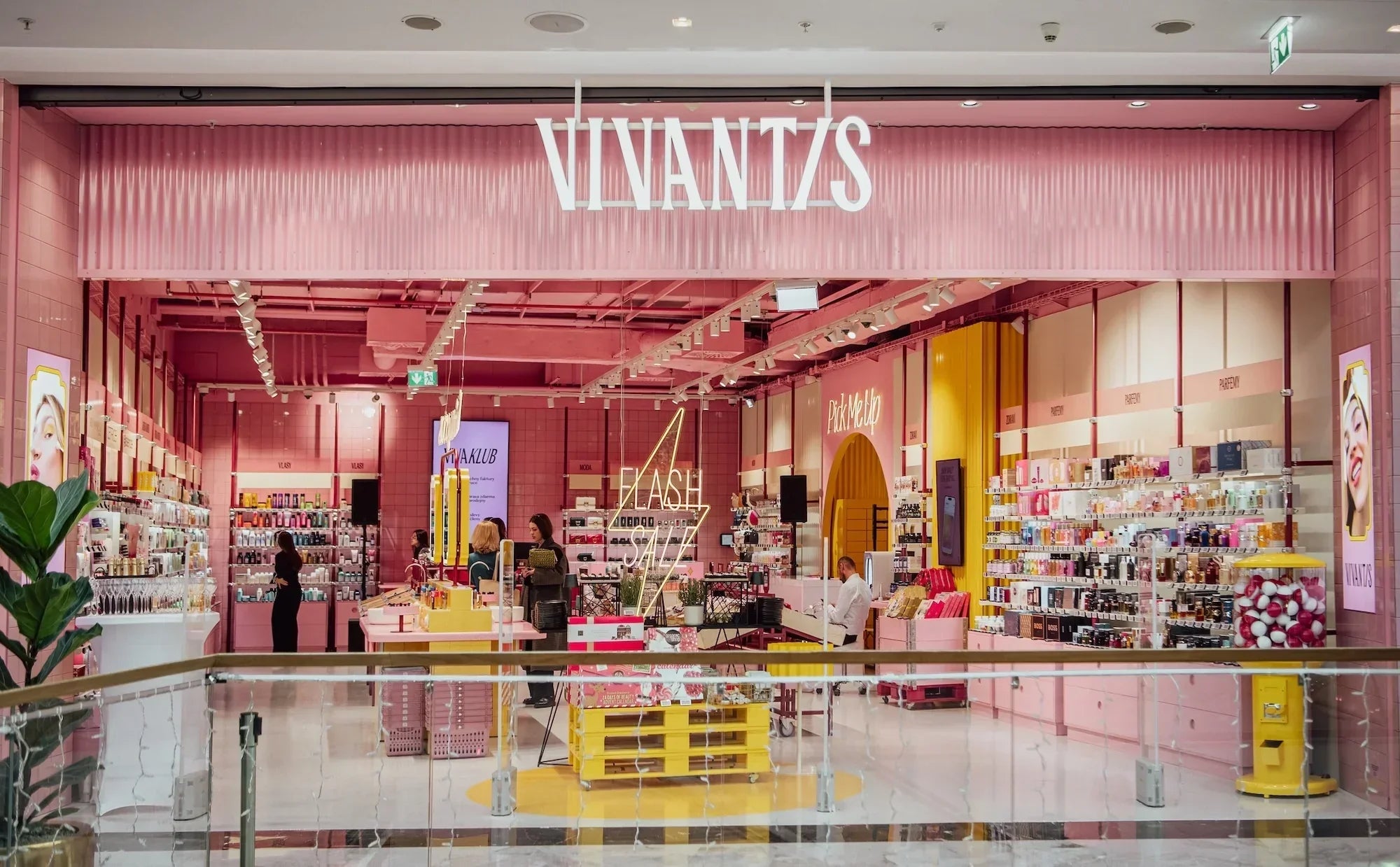
Say the name out loud: Vivantis. Now faster. Vi-vant-is. “We want this.”
That phonetic coincidence became the starting point for everything Stockholm-based creative agency SNASK built when they took on the rebrand of one of Europe’s largest beauty e-commerce platforms, specialising in the Eastern European market. The wordmark has been crafted to emphasise exactly how the name reads when spoken aloud, splitting the letters to lean into that double meaning.
It’s a rather clever piece of verbal design, but the deeper challenge for the project was structural. Vivantis had built a successful commerce operation across Eastern Europe, yet the brand itself carried no weight. Customers chose it for price and product availability, then moved on without a second thought. There was no loyalty, no emotional connection, no reason to come back beyond the next discount. SNASK’s brief was to change that, starting from strategy and tone of voice through to the full identity, campaign production and a flagship store concept.
The discovery process revealed a brand that had been looking in the wrong direction. “Their brand was more focused on pleasing millennials rather than trend-setting Gen Z,” Freddie Öst, Founder at SNASK, shares. “But the challenge ran even deeper as they never really created a lifestyle brand and were more focused on product and service rather than brand building. And that’s not how loyalty is built, as product and service is easy to copy.” Vivantis had all the commercial infrastructure but none of the personality. The rebrand needed to give customers something worth being loyal to.
SNASK’s answer arrived through a deceptively simple concept: ‘Hello Gorgeous.’ The idea positions Vivantis as a kind of best friend – the one who tells you the truth, hypes you up and never lets you leave the house second-guessing yourself. The phrase became the organising principle for the identity, informing everything from art direction to in-store signage. “The idea was quite simple, as many of their customers turned to them for not only product but also advice and support, and so focusing on making Vivantis their best friend became a natural choice,” notes Erik Kockum, Creative Director at SNASK. The communication concept was built to inject positivity, fun and encouragement into a brand that had previously operated on pure transaction.
The art direction makes this relationship tangible through a specific camera technique. By placing the camera inside the mirror, SNASK created imagery where Vivantis looks directly back at the viewer – your no-nonsense best friend catching your eye in the reflection. It’s a small directorial decision that anchors the entire visual tone. For the launch campaign, the agency produced both photography and film, building sets that extended the identity into three-dimensional space. “The art direction came naturally from the visual identity,” Kockum explains. “We built sets that harmonised and further pushed the identity. The no BS part was set in the soft light, but also the talent acting.” The result is campaign material where the confidence feels earned, carried by lighting and performance as much as by graphic design.
Typographically, the identity runs on PP Fragment through its Glare and Sans cuts. The former delivers expression and personality, whilst the latter handles legibility and everyday communication. “It’s a very expressive typeface when set in Glare and very modern and legible set in Sans,” Öst notes. “So it became the perfect typeface.” SNASK developed guidelines governing how the two cuts work across different contexts, creating a system that can shift tone without losing coherence.
Alongside the type, SNASK developed a suite of custom icons and expressive frames that carry significant weight across Vivantis’ channels. The frames grew directly from the icon style, sharing the same visual DNA and maintaining consistency across the system. They had to walk a specific line – playful enough to reinforce the brand’s personality but restrained enough to let content breathe.
The scope of the project extended beyond screens into physical retail. SNASK collaborated with Blink, the interior design agency on the project, to translate the identity into Vivantis’ flagship store. Iconography and typography became signs and wayfinding, and the shapes from the icons and expressive frames found their way into spatial design. Every screen within the store carries the identity in its content, creating continuity between the digital experience customers already knew and the physical one they were now walking through.
Five months after launch, Vivantis reported a 30% increase in sales. For a brand that previously competed solely on price and product range, that commercial shift suggests the identity is doing exactly what the brief demanded – giving customers a reason to choose Vivantis that goes beyond the next transaction.